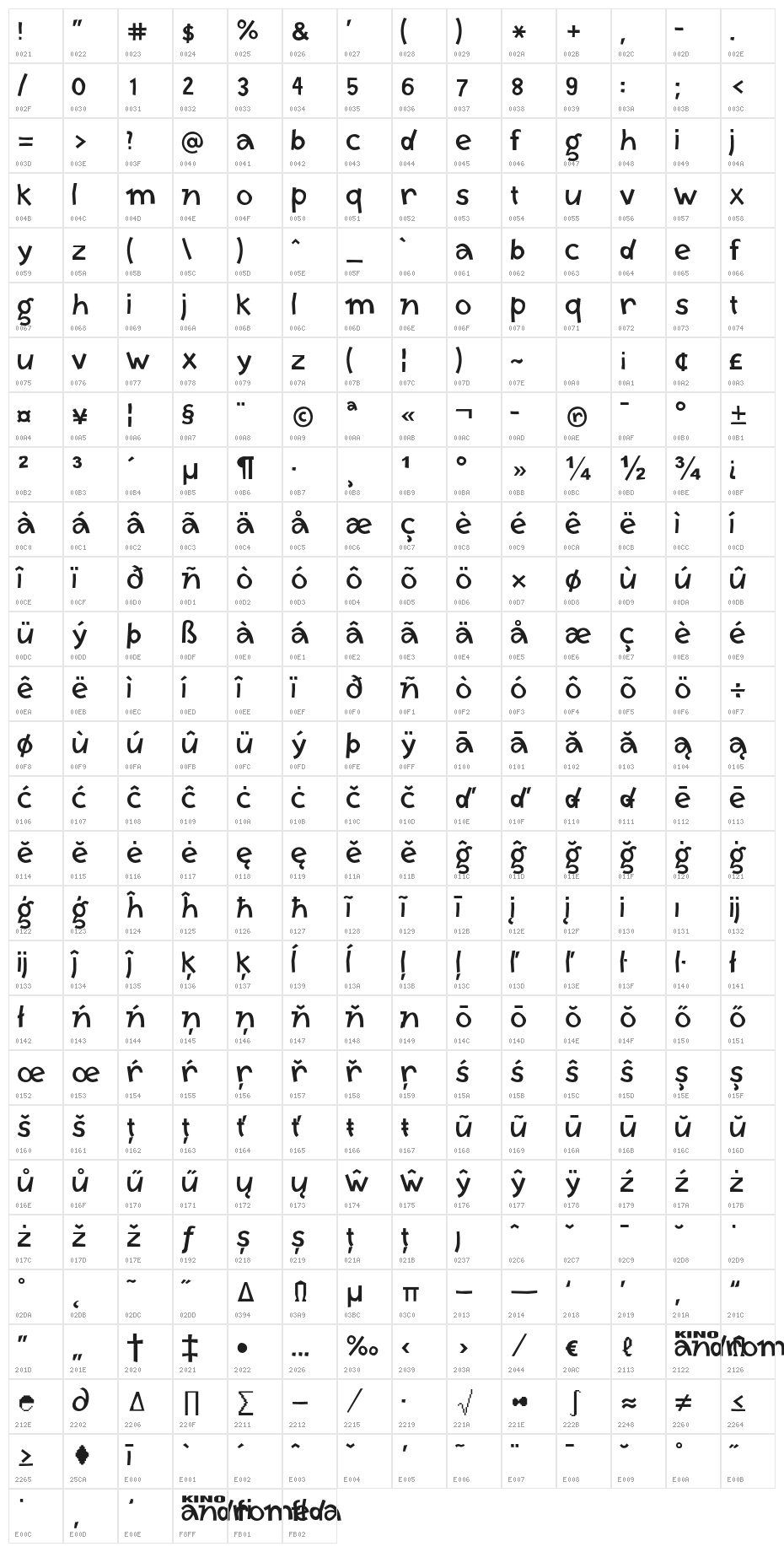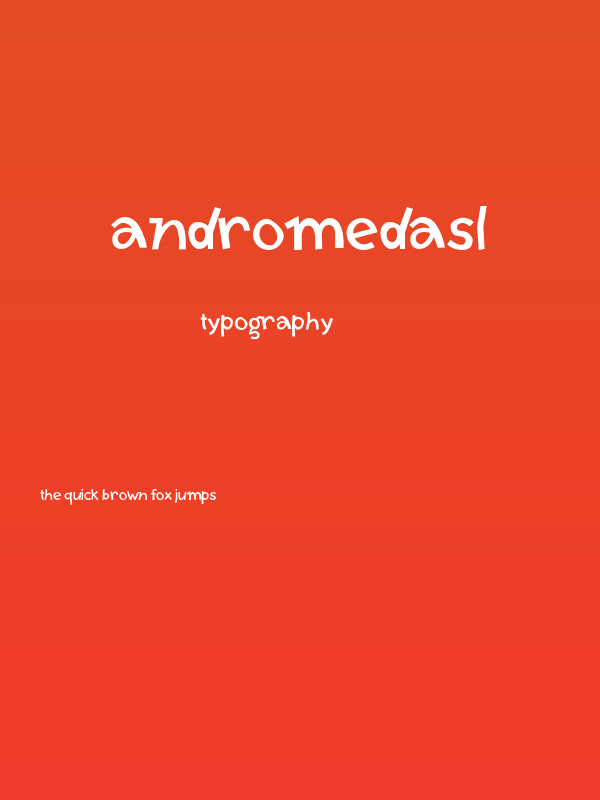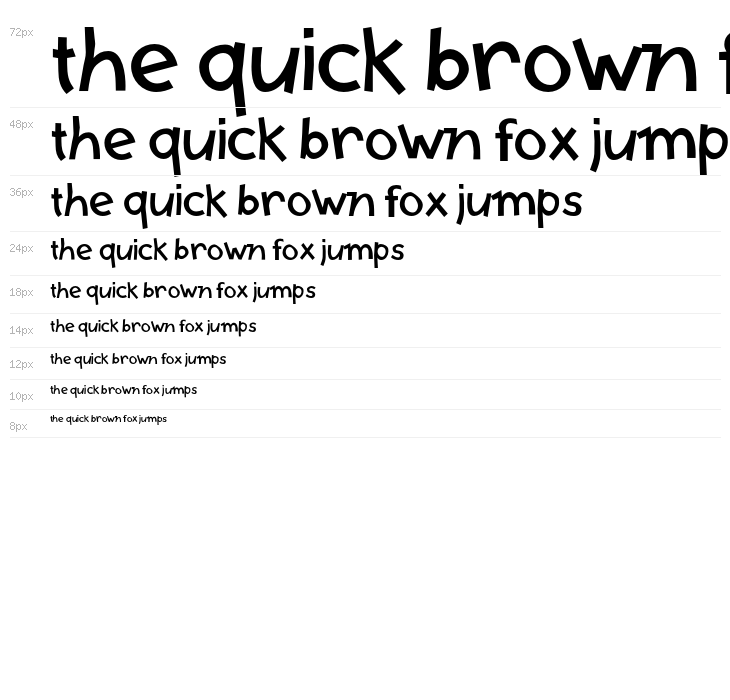
AndromedaSL Font
AndromedaSL Description
This font features a playful and whimsical design with a hand-drawn aesthetic. The characters are bold and slightly irregular, giving them a lively and dynamic appearance. The strokes are thick and consistent, with rounded edges that add to the friendly and approachable feel. The letters have a slight tilt, enhancing the casual and informal style. The numbers and special characters maintain the same playful quality, making the font suitable for creative and fun projects. The overall look is modern yet reminiscent of handwritten notes, perfect for adding a personal touch to any design.
| Proposed Projects | Ideal for children's books, greeting cards, playful branding, and creative posters. |